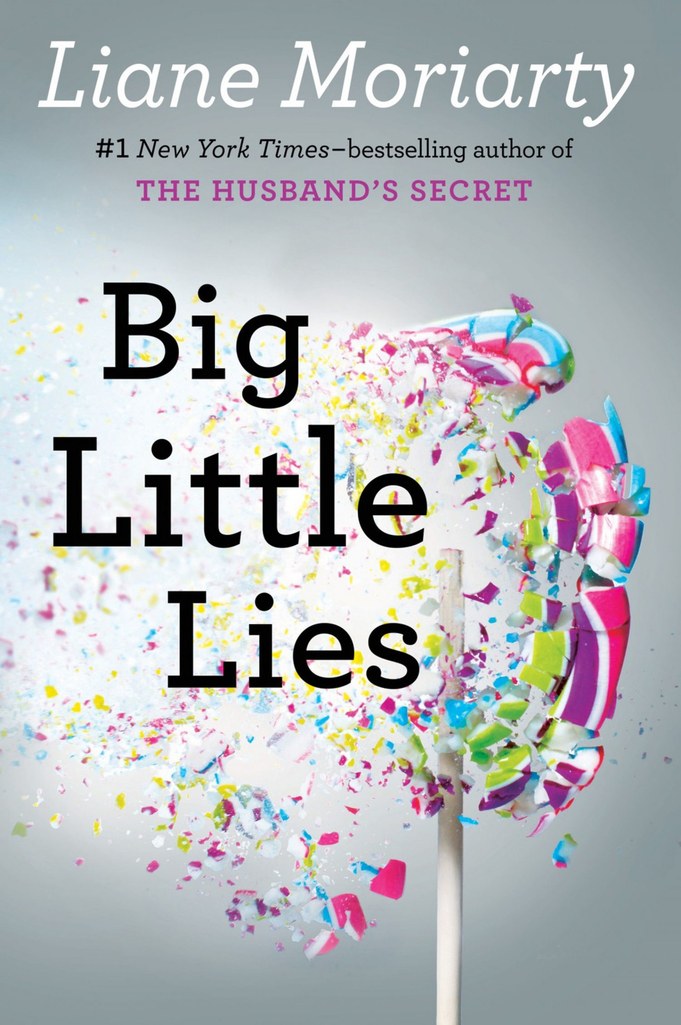
Big Little Lies Font
BookBig Little Lies is a novel by Liane Moriarty, published in 2014. It is a psychological thriller that follows the lives of three mothers in a wealthy suburb of Sydney, Australia. A TV series based on the book debuted on HBO on February 19, 2017.
For Martha Stewart Living magazine in 2001, Tobias Frere-Jones and Jonathan Hoefler created the elegant slab serif known as Archer Medium, which is used in the book's title lettering. Later, it was made available for commercial license. The typeface is a geometric slab serif, which has a geometric pattern akin to sans-serif fonts. It is influenced by styles from the middle of the twentieth century like Rockwell's.